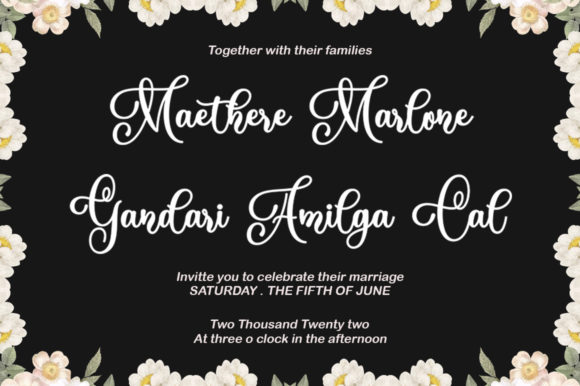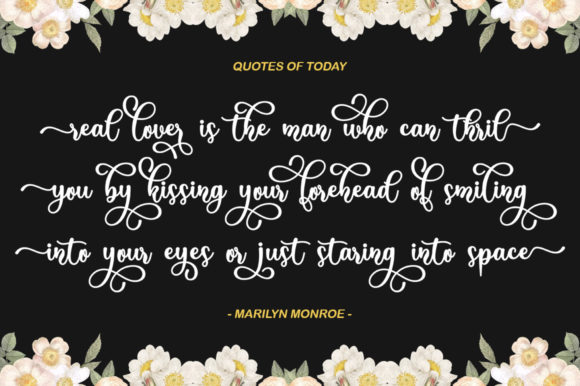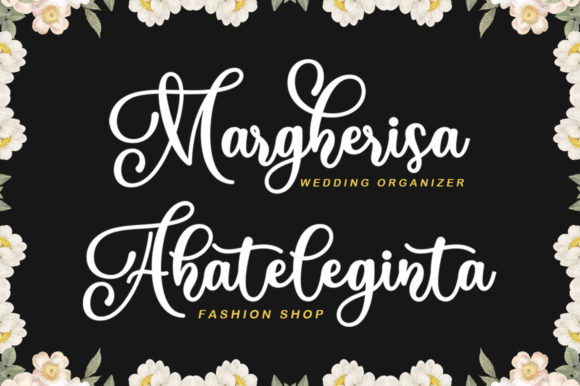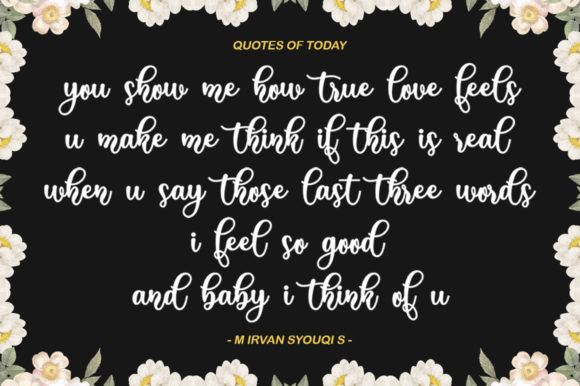
Introducing Angelin Gilard Font: Elevate Your Designs with Elegance
In the world of typography, a font can make or break a design. It’s the perfect blend of style, elegance, and readability that can transform a simple creation into a masterpiece. If you’re a designer, crafter, or simply someone who appreciates the art of beautiful typography, then you’re in for a treat. Say hello to Angelin Gilard Font, a dazzling script font that’s about to become your new favorite companion in the world of design.
What Makes Angelin Gilard Font Special?
Angelin Gilard Font is not just any ordinary font. It’s a meticulously crafted script font that exudes elegance and sophistication. Its neat and highly detailed design makes it a versatile asset for any font library. Whether you’re working on a branding project, a wedding invitation, a fashion magazine, or any other creative endeavor, Angelin Gilard Font has the potential to elevate your design to new heights.
One of the standout features of Angelin Gilard Font is its PUA (Private Use Area) encoding. This means that you can access all glyphs and swashes with ease, giving you unparalleled flexibility and creative control over your typography. With PUA encoding, you can effortlessly navigate through the font’s extensive character set, including alternates, ligatures, and decorative swashes, to create stunning text arrangements that capture the essence of your design.
Key Features of Angelin Gilard Font
- Exquisite Script Design: Angelin Gilard Font boasts a beautifully crafted script design that’s perfect for creating elegant and sophisticated text arrangements.
- PUA Encoded: Enjoy easy access to all glyphs and swashes, allowing you to experiment with different typography styles and combinations.
- Highly Detailed: The font’s intricate details make it suitable for high-resolution designs, ensuring that your creations look crisp and refined.
- Versatile: From branding and advertising to packaging and editorial design, Angelin Gilard Font can be used across a wide range of applications.
Why Choose Angelin Gilard Font?
In a world where fonts are a dime a dozen, Angelin Gilard Font stands out from the crowd. Here are just a few reasons why designers and crafters are falling in love with this stunning script font:
- Elegance: Angelin Gilard Font brings a touch of sophistication and glamour to any design, making it perfect for projects that require a high-end feel.
- Readability: Despite its ornate design, Angelin Gilard Font remains highly readable, even at smaller sizes, making it suitable for body text and headings.
- Creativity: With its extensive character set and PUA encoding, Angelin Gilard Font gives you the creative freedom to experiment with different typography styles and arrangements.
How to Use Angelin Gilard Font in Your Designs
So, how can you incorporate Angelin Gilard Font into your design workflow? Here are a few ideas to get you started:
- Branding and Logo Design: Use Angelin Gilard Font to create elegant and sophisticated logos that capture the essence of your brand.
- Wedding and Event Stationery: Add a touch of glamour to your wedding invitations, save-the-date cards, and other event stationery with Angelin Gilard Font.
- Fashion and Beauty: Use Angelin Gilard Font in fashion magazines, beauty blogs, and product packaging to convey a sense of luxury and style.
| Font Name | Angelin Gilard Font |
| Author | IRF Lab Studio |
Angelin Gilard Font is more than just a font – it’s a design asset that can elevate your creations to new heights. With its exquisite script design, PUA encoding, and versatility, this font is perfect for designers and crafters who appreciate the art of beautiful typography. Whether you’re working on a branding project, a wedding invitation, or a fashion magazine, Angelin Gilard Font is sure to become your go-to companion in the world of design.